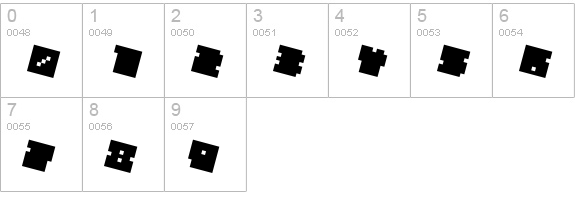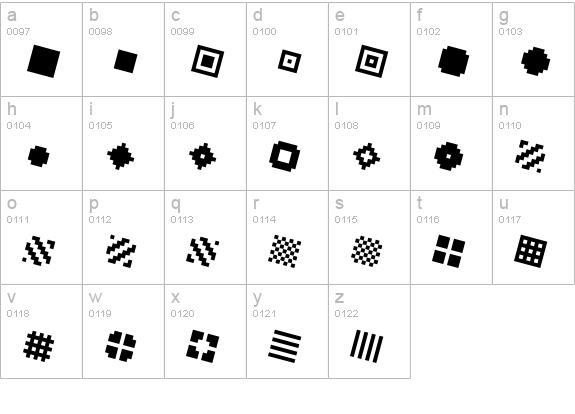
QUBE ITALIC is a distinctive, italic variant in the QUBE typeface family \xE2\x80\x94 well suited to design and typography projects.
Introducing QUBE ITALIC font, a stunning typeface that effortlessly merges elegance and modernity. With its sleek and sophisticated design, QUBE ITALIC is sure to add a touch of refined charm to any project. This font has been meticulously crafted with precision, ensuring each letter is perfectly balanced and harmonious. The italicized style adds a touch of dynamism and flair, making it ideal for conveying a sense of energy and creativity. QUBE ITALIC font is not only visually captivating, but also highly versatile. Whether you're designing a logo, creating a brand identity, or working on a digital or print project, this font will undoubtedly make a lasting impression. What's even better, QUBE ITALIC font is available for free! You heard that right – you can freely download this captivating typeface at FontsMarket.com. This means you can elevate your designs without breaking the bank, making it an ideal choice for both personal and commercial projects. So why wait? Enhance your creative endeavors with QUBE ITALIC font today. Download it for free at FontsMarket.com and discover a world of endless possibilities for your typography needs.